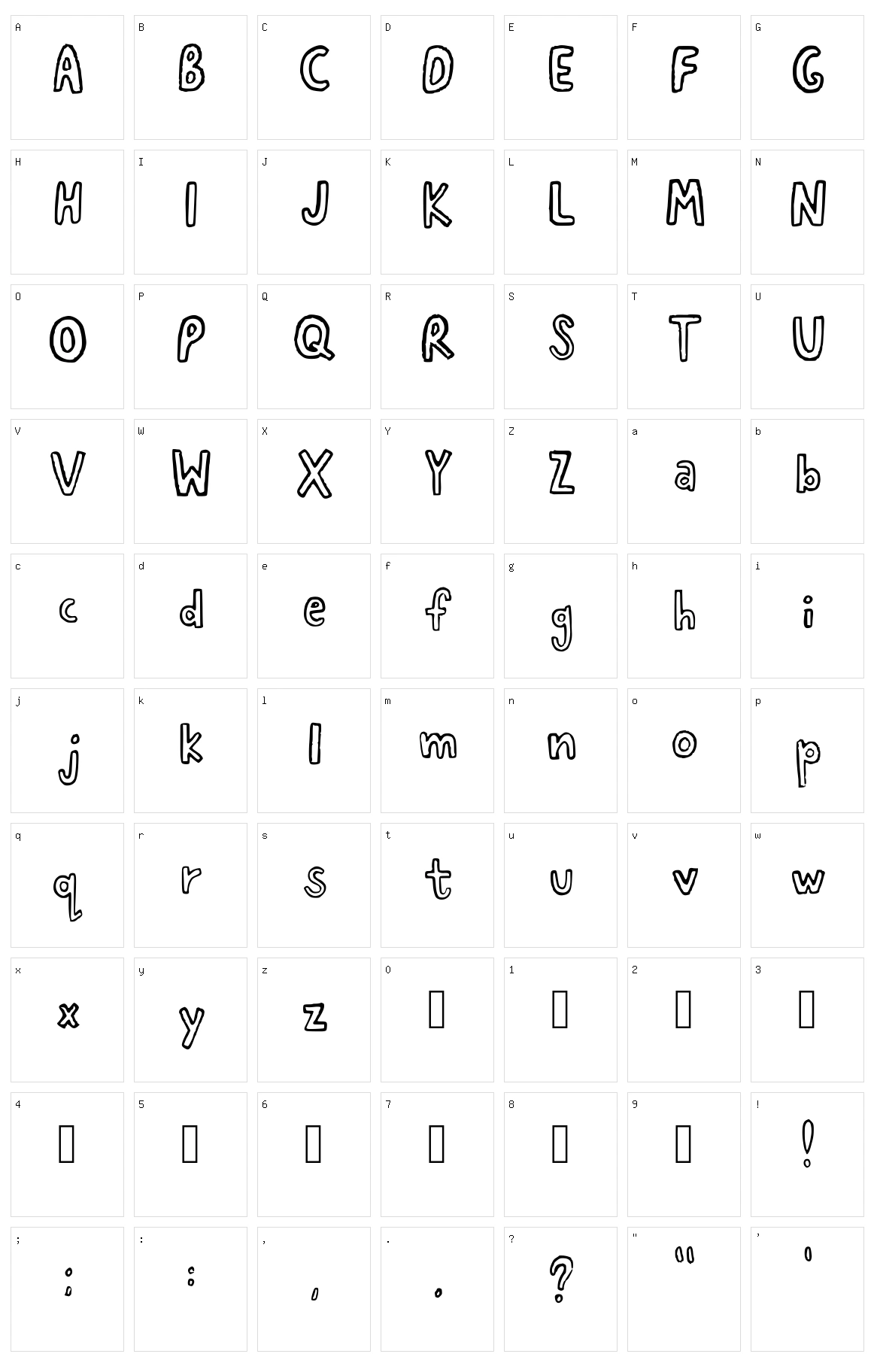
The free font Delvue is carefully designed by Desiree Cho, showcasing a thoughtful balance of creativity and usability and falls under the Cartoon font style. When you download the ZIP file, it contains only 16.44 KB of font files, making it lightweight and quick to download. Please review the license details below to understand permitted usage and distribution rights. If license information is not available, we recommend using this font for personal projects only or contacting the author directly for commercial usage permissions.